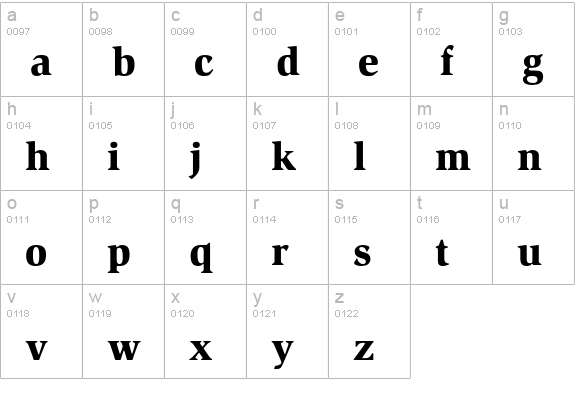
AT Slimbach Black Font Details
AT Slimbach Black is a maximum-weight, dramatic variant in the AT typeface family \xE2\x80\x94 well suited to maximum-impact headlines, posters, and packaging.
AT Slimbach Black is a striking and sophisticated font designed by renowned typographer Robert Slimbach. Its sleek and modern design exudes elegance and professionalism, making it perfect for various design projects. The bold weight of the font commands attention and adds a touch of boldness to any text. What makes AT Slimbach Black even more appealing is that it is available for free download at FontsMarket.com. This means that you can easily access this high-quality font without any cost, making it a valuable addition to your font collection. Whether you are working on branding, advertising, or editorial design, AT Slimbach Black is sure to elevate your projects with its timeless appeal and versatility. Download this exquisite font today and enhance your creative endeavors with its bold and refined aesthetic.